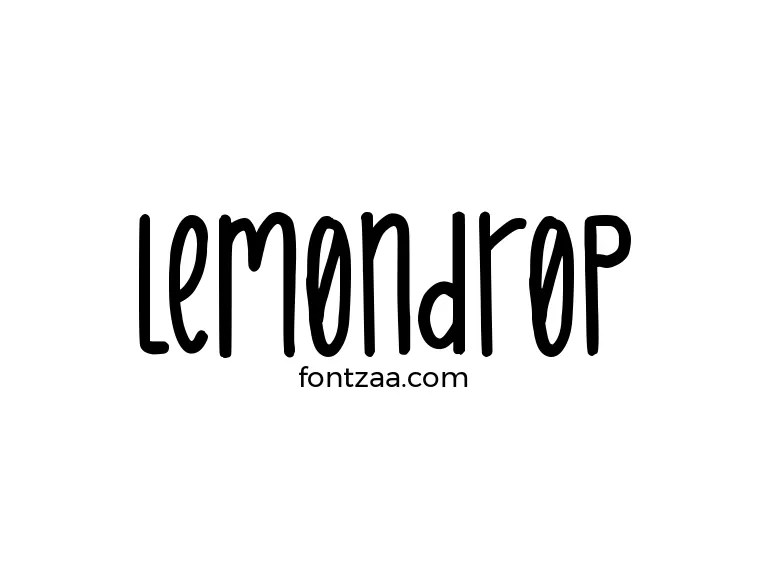
Lemondrop Font comes from Muhamad Yusron Billah and has a modern look. The download includes 1 font file (OTF) with 209 glyphs, covering uppercase and lowercase letters, numerals, common punctuation, accented Latin characters and currency symbols. It suits logos, wordmarks, branding, posters, packaging and promotional graphics, particularly at larger sizes where the letter shapes are easier to see.
Lemondrop Font Family
Pairing and Use
For body text, pair Lemondrop Font with a neutral sans such as Open Sans or Inter and keep the font itself for headlines and key words.